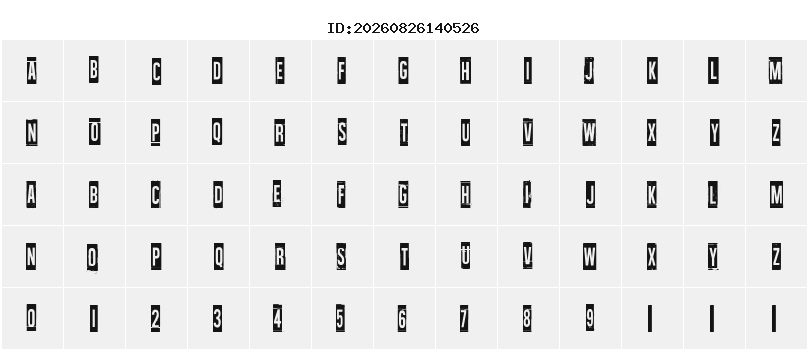
• Font Name: Wallowxenon
• Designer: junkohanhero
About Wallowxenon.ttf
Wallowxenon.ttf is a modern, elegant sans-serif font designed for ultimate readability and visual harmony. Perfect for branding, headlines, web design, and print materials.